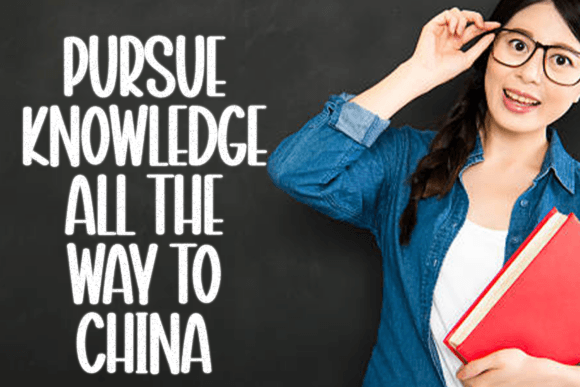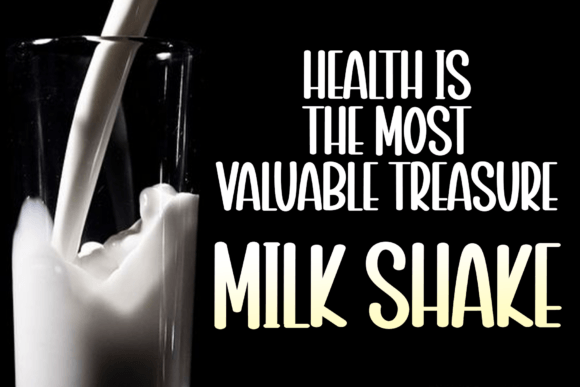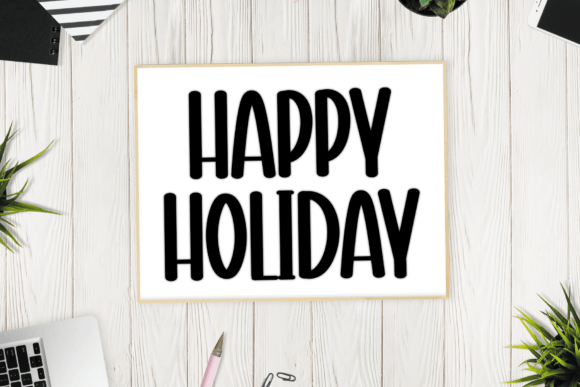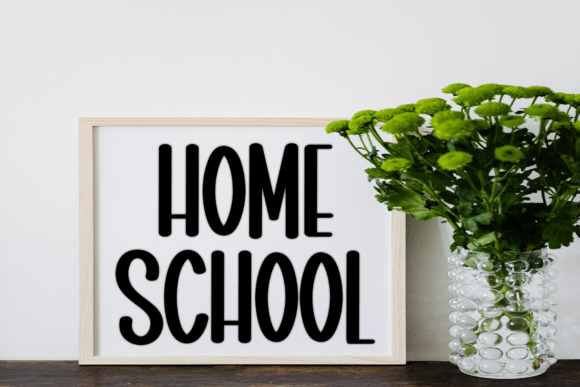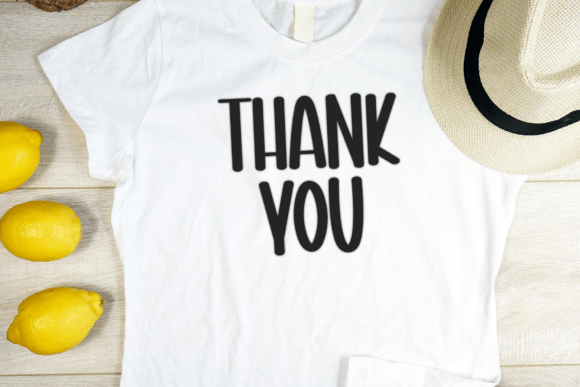
Discover the Joy of Brother Happyland Font
Have you ever sat at your desk, staring at a blank page, waiting for inspiration to strike? That’s exactly where I was when I stumbled upon the Brother Happyland Font. Its clean and beautiful handwritten style instantly captured my heart, and I knew I had to learn more about it.
Brother Happyland Font is a stunning typeface that’s perfect for adding a touch of elegance to your favorite projects. Whether you’re designing a wedding invitation, a children’s book, or a social media campaign, this font is sure to make your creations stand out. Its timeless style is incredibly versatile, making it a valuable asset for designers who want to create spectacular designs that leave a lasting impression.
Key Features of Brother Happyland Font
- Unique Characteristics: The font features a unique, hand-drawn style with a warm and friendly feel, making it perfect for creative projects and personal use.
Designer Review: Brother Happyland Font
Overall, I think the Brother Happyland Font is a unique and charming addition to any design project. ✨ The font’s playful, hand-drawn aesthetic makes it perfect for creating a whimsical and friendly vibe.
One of the things that stands out about Brother Happyland is its versatility. ✨ It works well for both digital and print projects, from branding and logos to social media graphics and web design. The font also comes in a range of weights, making it easy to find the perfect version to suit your design needs.
- Unique, hand-drawn aesthetic
- Works well for both digital and print projects
- Versatile range of weights
- May not be suitable for professional or corporate branding due to its playful nature
- Some characters may be inconsistent in terms of spacing and alignment
- Not ideal for small text sizes due to its relatively wide character width
Overall, I think the Brother Happyland Font is a fun and creative option for designers looking to add some personality to their projects. While it may not be suitable for every design context, it’s a great choice for projects that require a lighthearted and approachable tone.
The Brother Happyland Font is perfect for creating playful and whimsical designs. Some common use cases include:
- Whimsical greeting cards
- Typography-based art projects